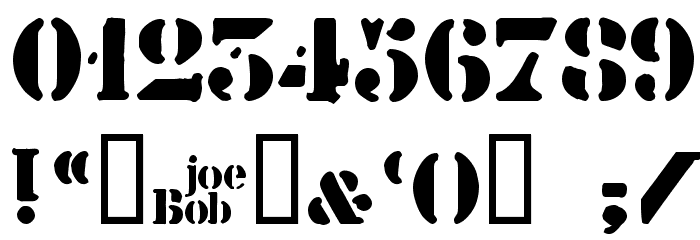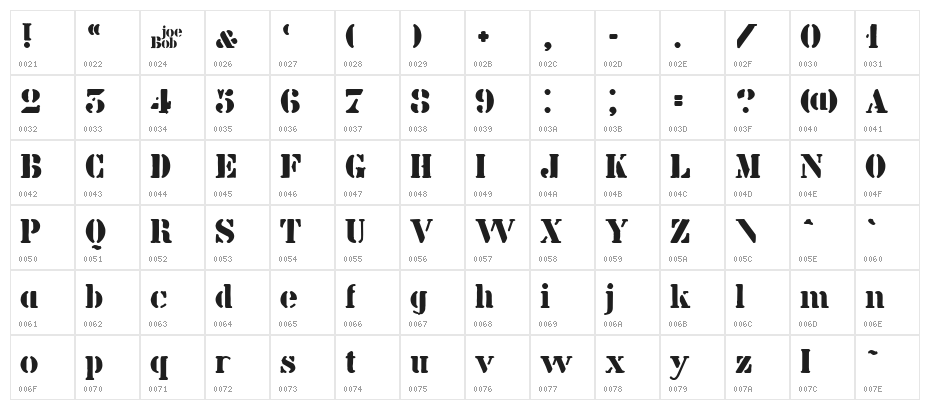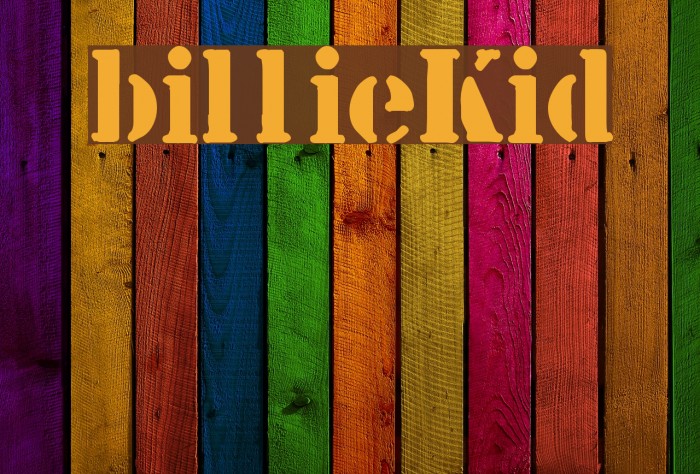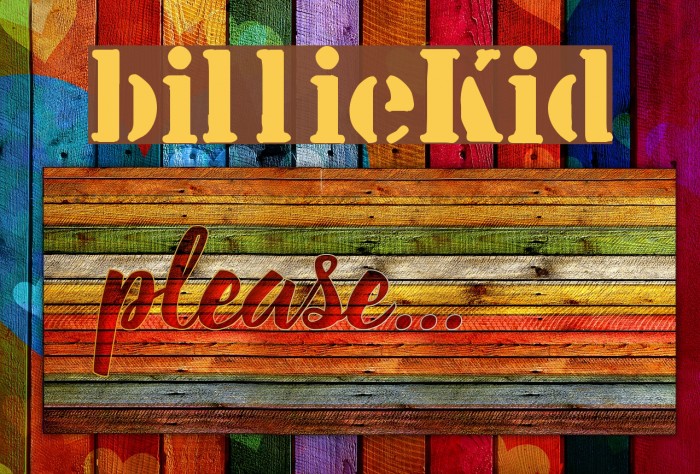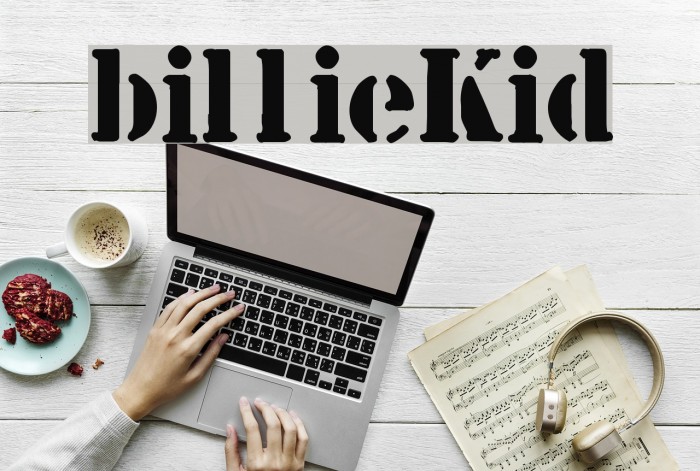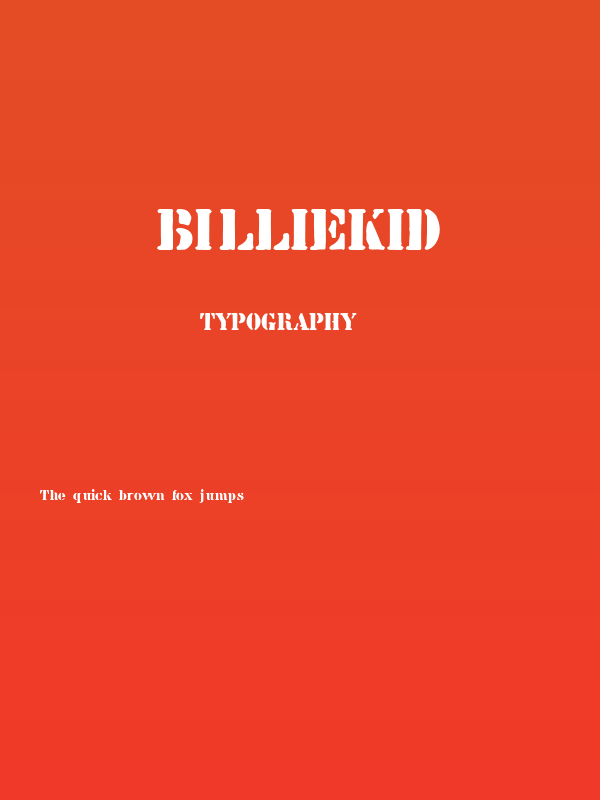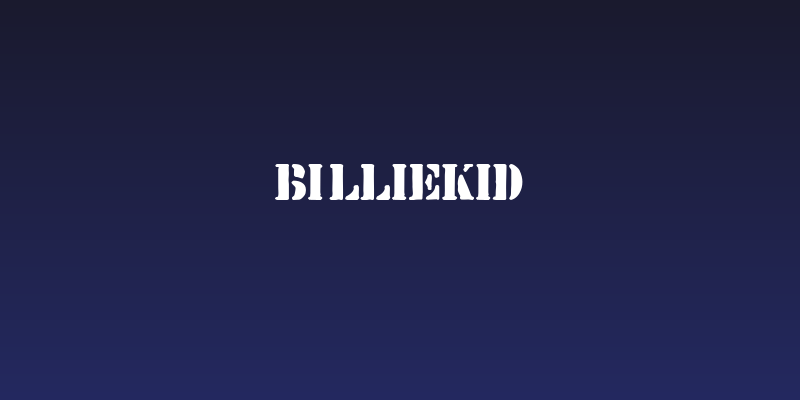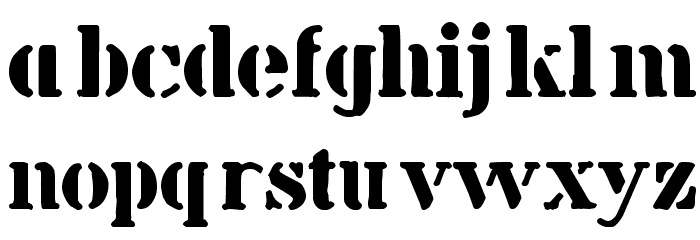
billieKid Font
billieKid Description
This font features a bold, stencil-like design with strong geometric shapes and high contrast between thick and thin strokes. The characters are distinct and easily recognizable, with a rugged, industrial feel. The uppercase and lowercase letters maintain a consistent style, while the numbers and special characters complement the overall aesthetic. The cut-out sections within the letters add a unique touch, making it suitable for eye-catching designs.
| Overall Style | Industrial, Modern |
| Proposed Projects | Ideal for posters, signage, branding, and any project requiring a bold, industrial look. |